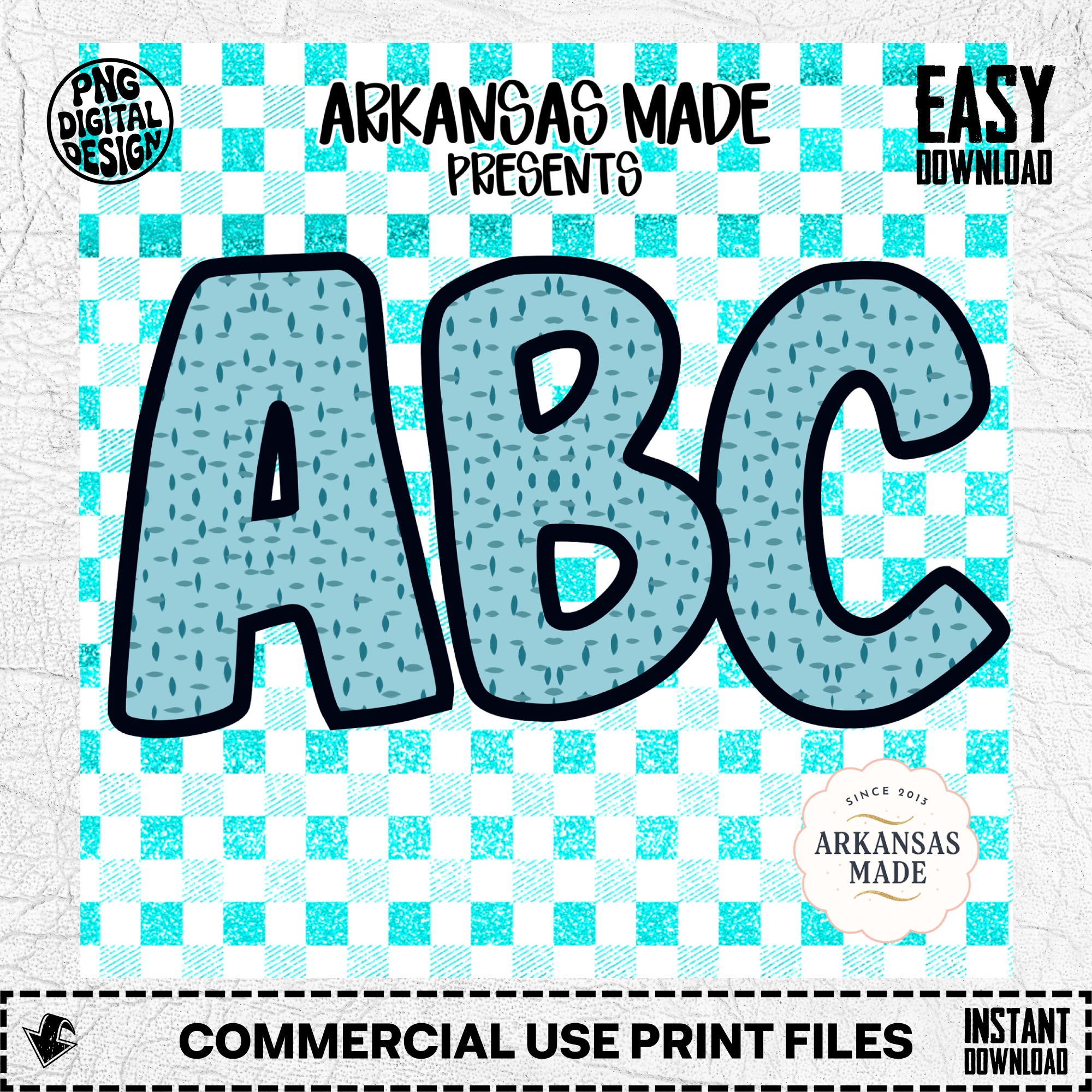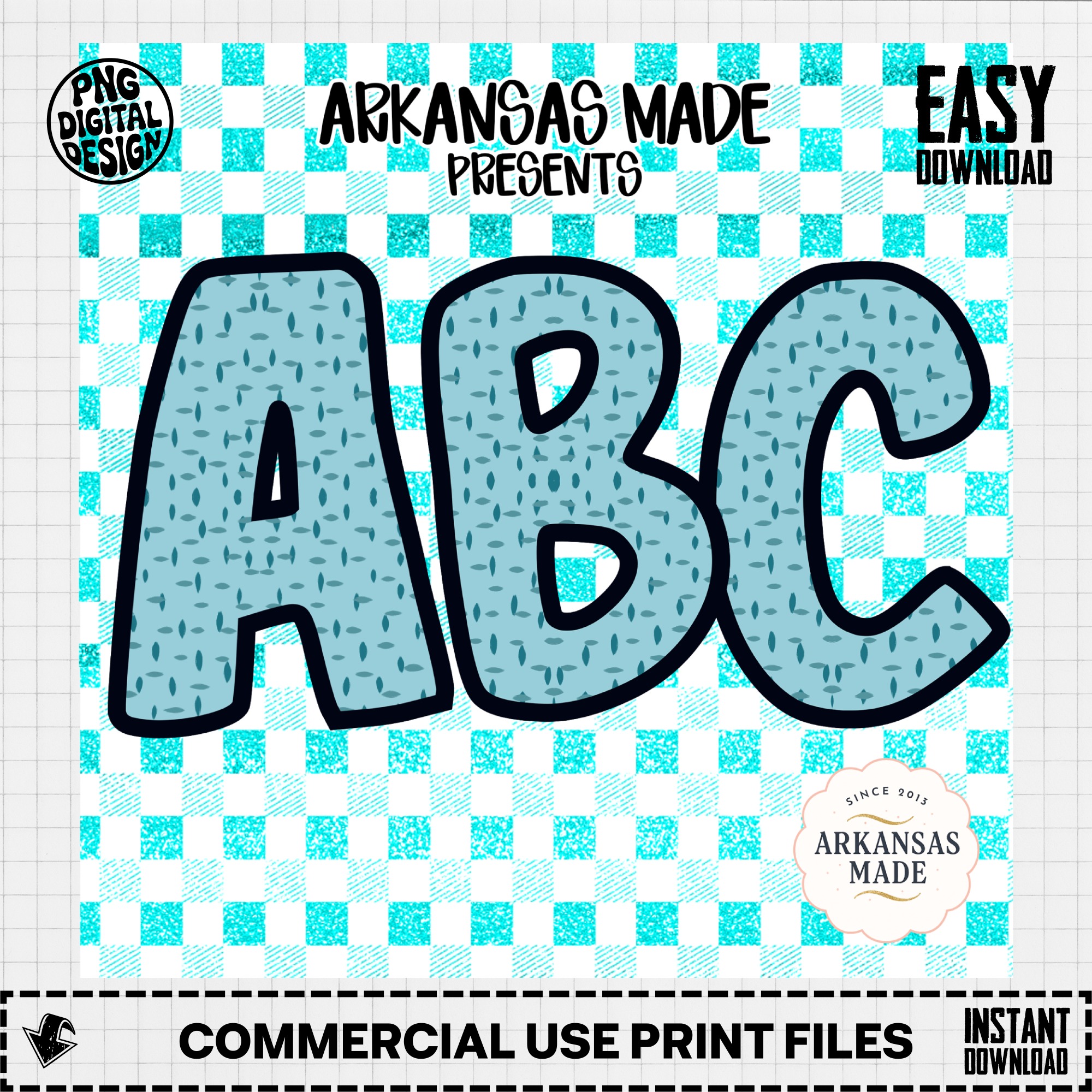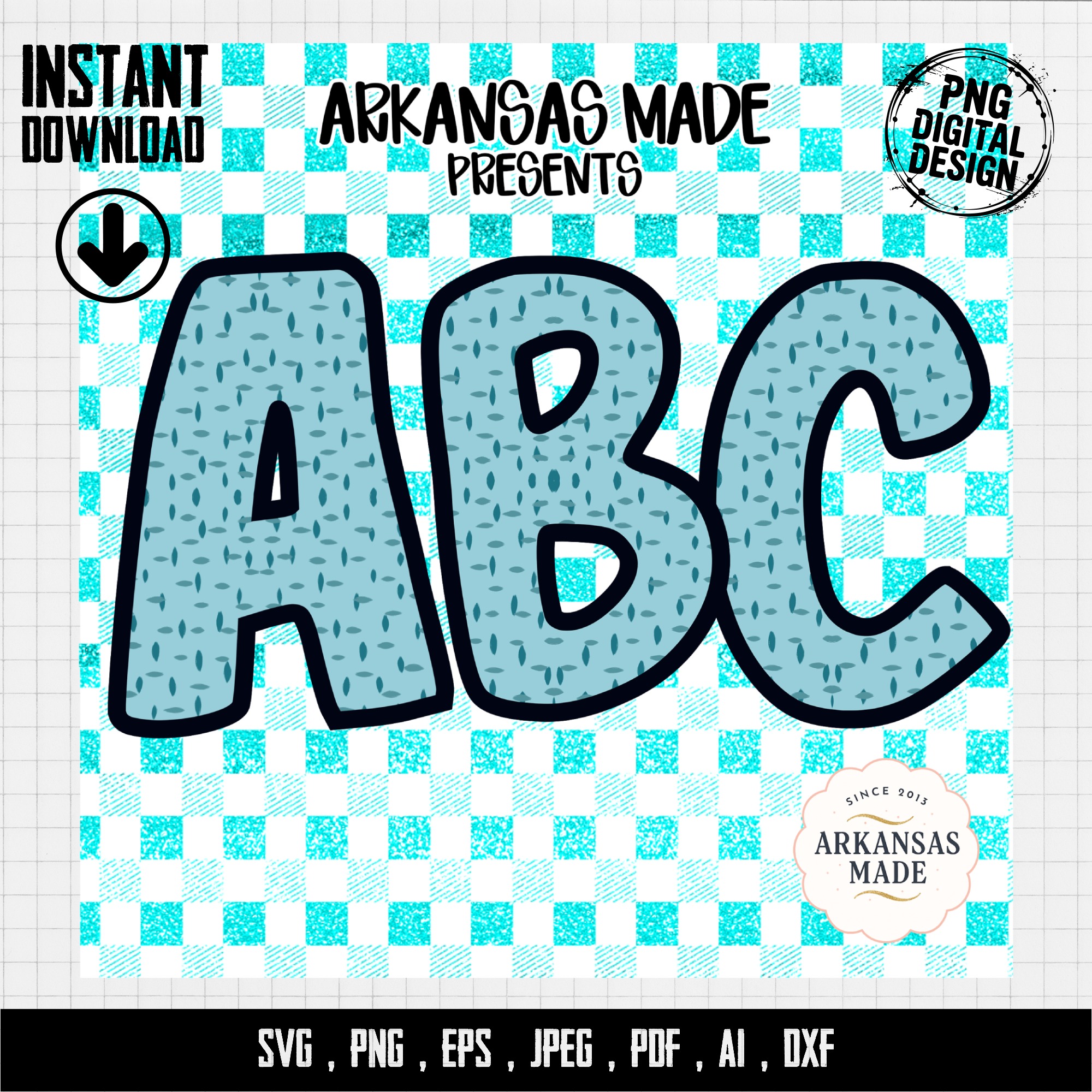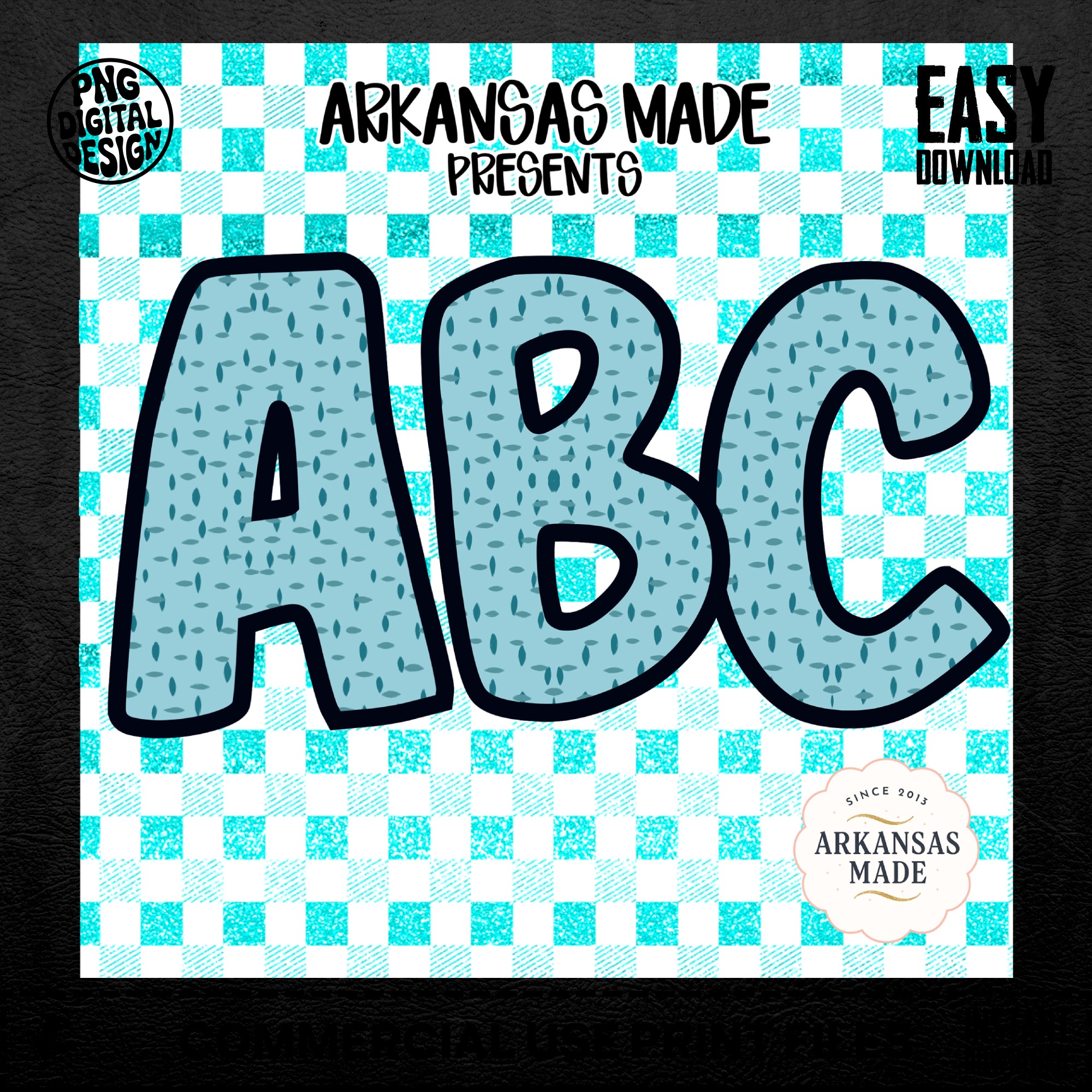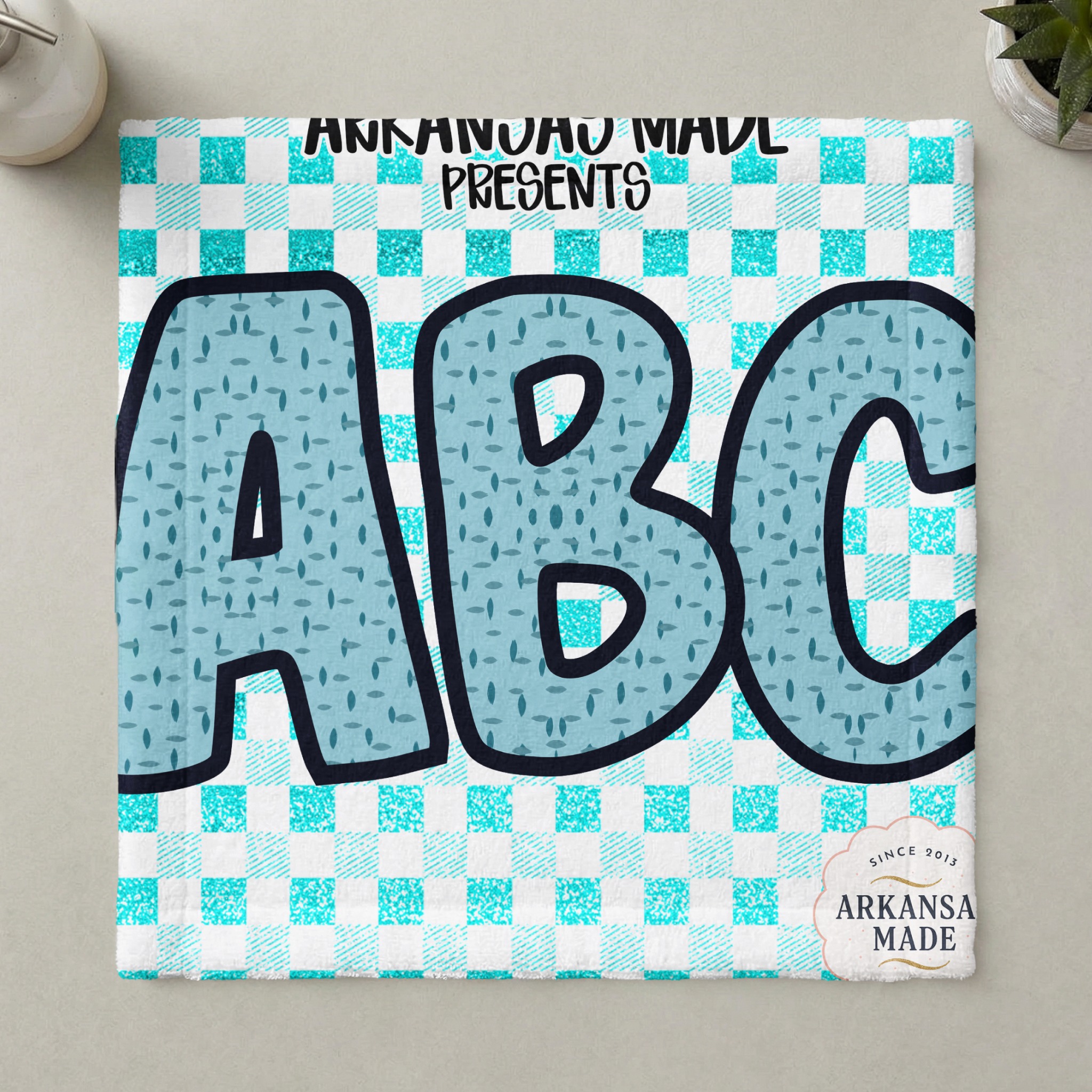
Elevate your projects with this charming Teal Gingham ABC Alphabet Digital Download. This full A-Z alpha set is perfect for personalized gifts, education, and nursery decor. Each letter features a unique light blue patterned texture, set against a vibrant turquoise and white checkerboard background, creating a visually appealing design. Ideal for crafters, small businesses, and DIY enthusiasts, this versatile collection of PNGs ensures high-quality results for all your sublimation and DTF printing needs. Add playful elegance to your designs with this instant download.